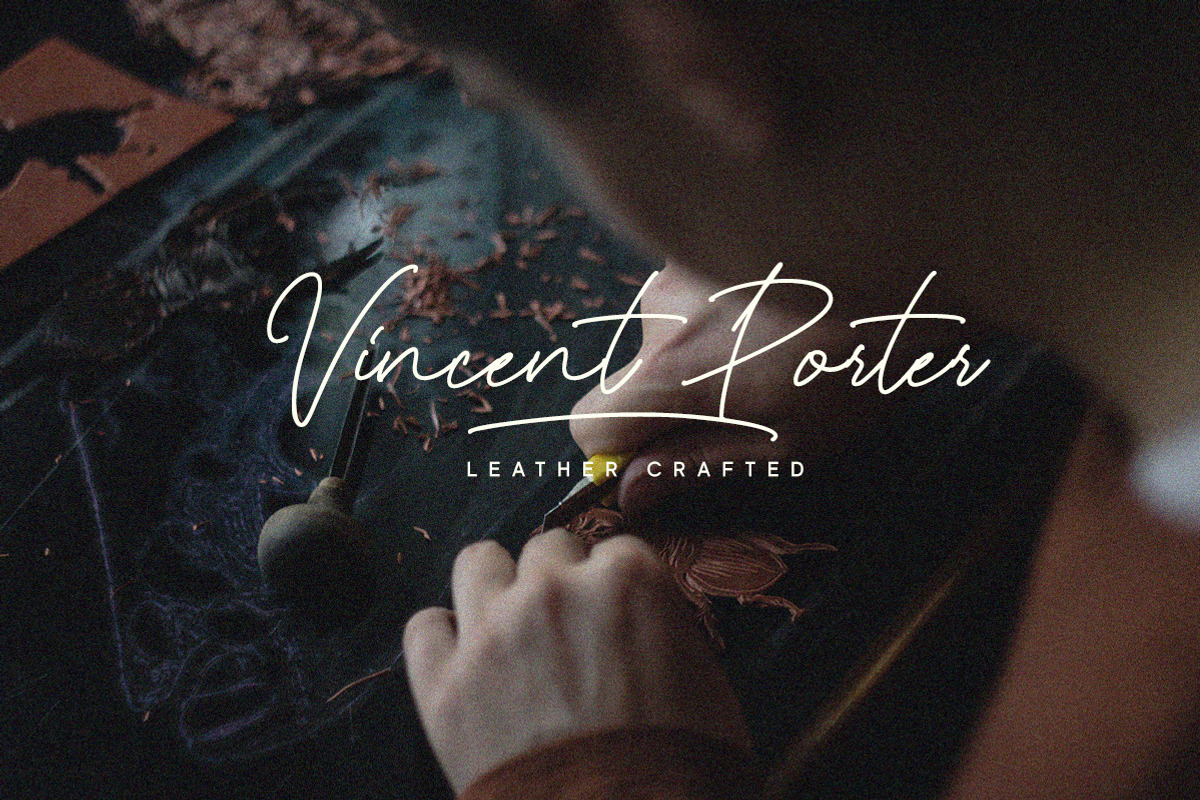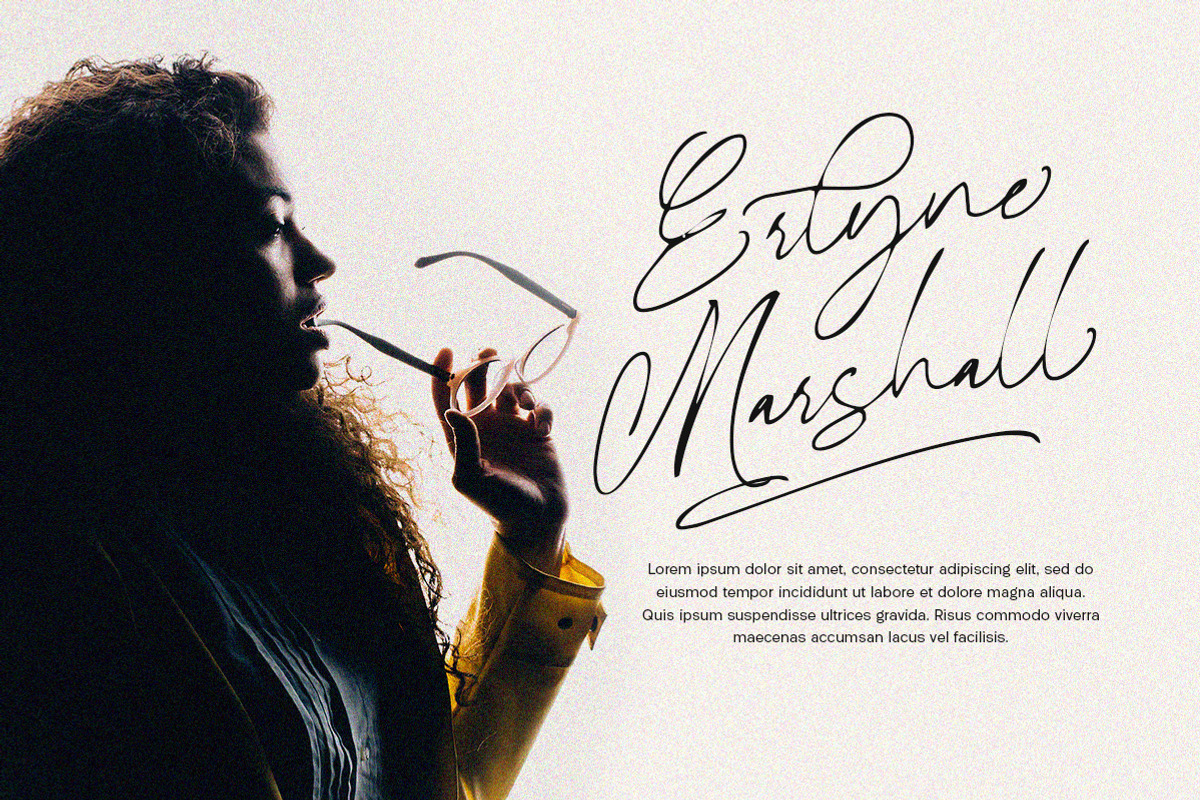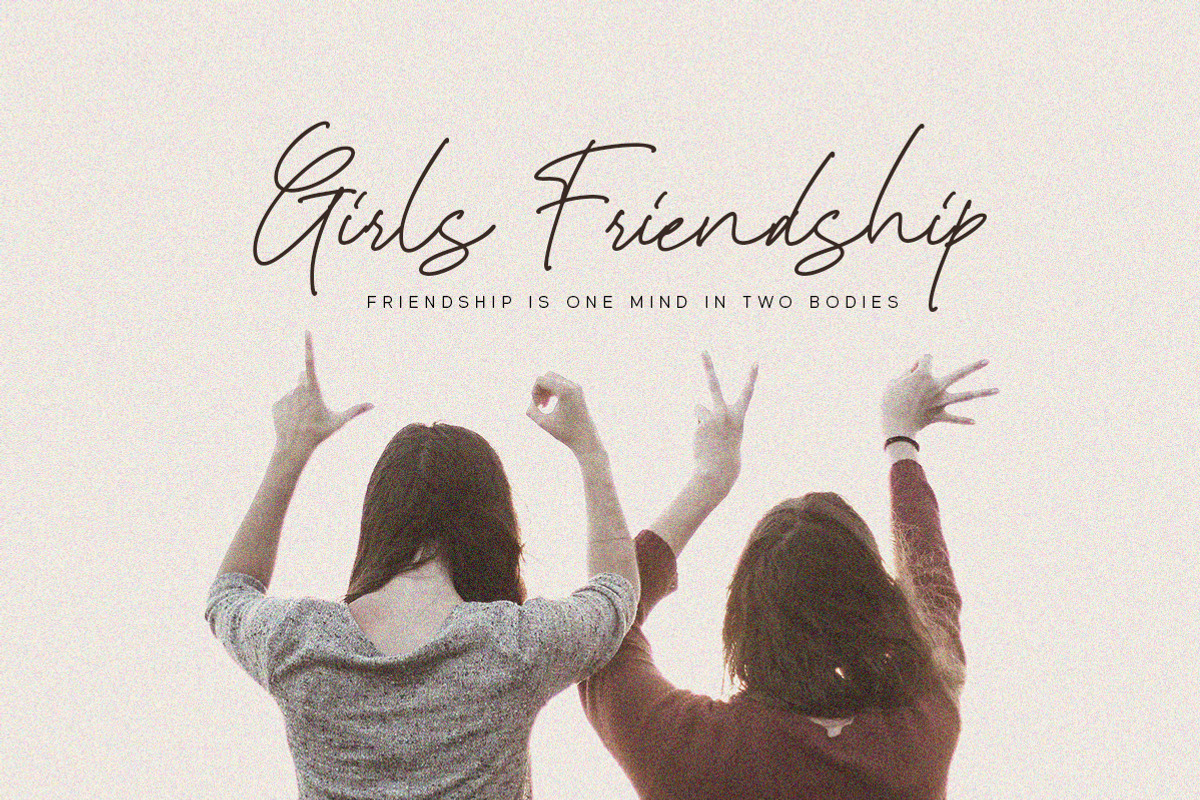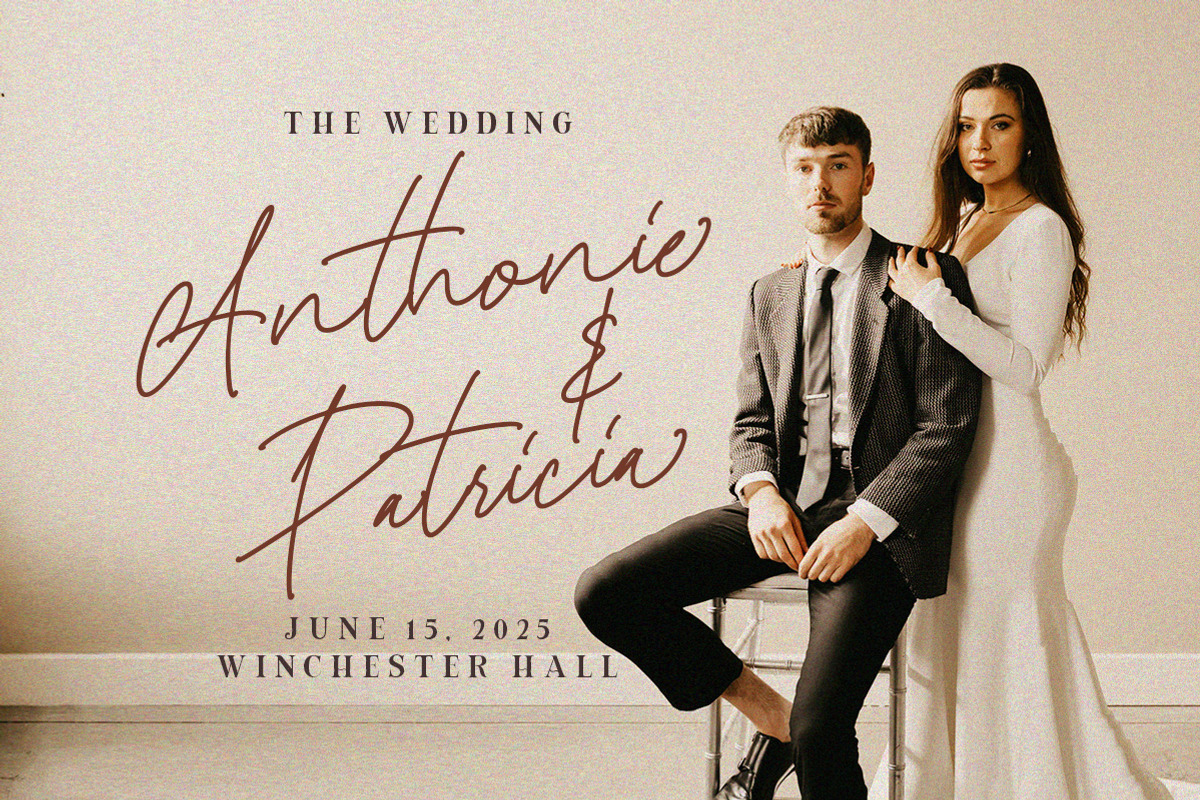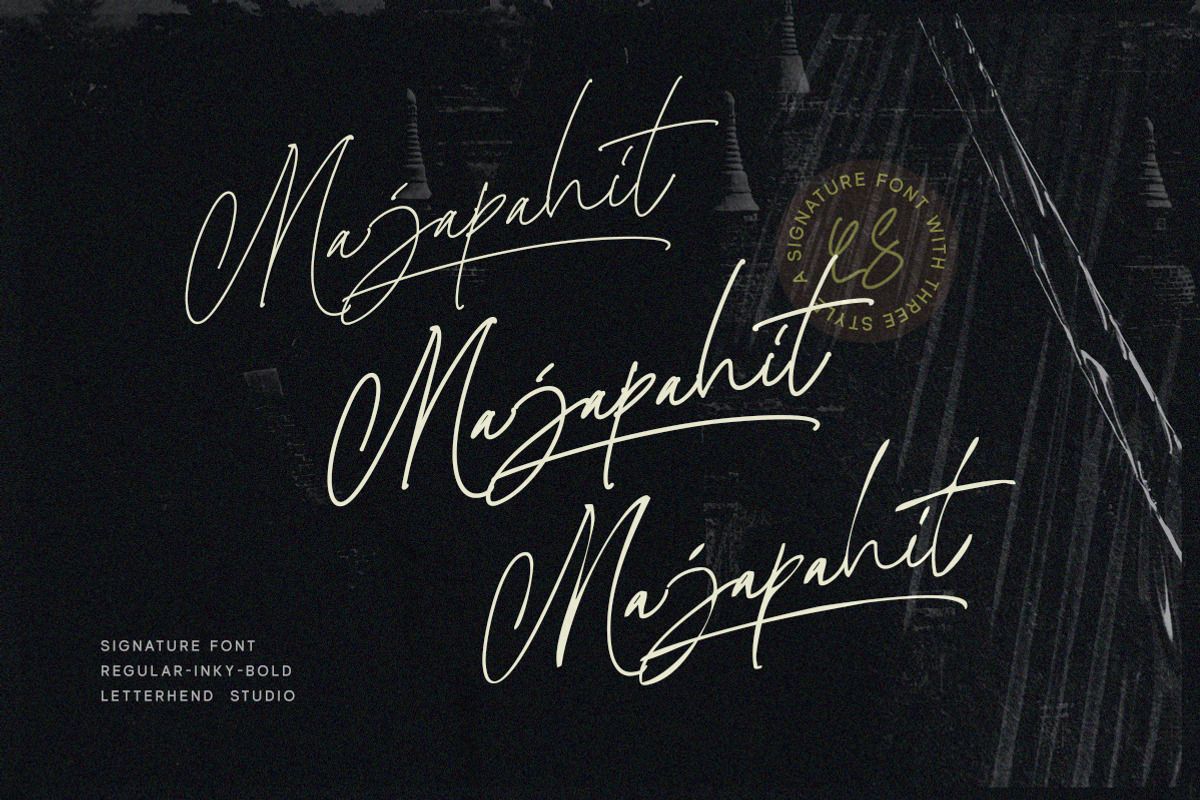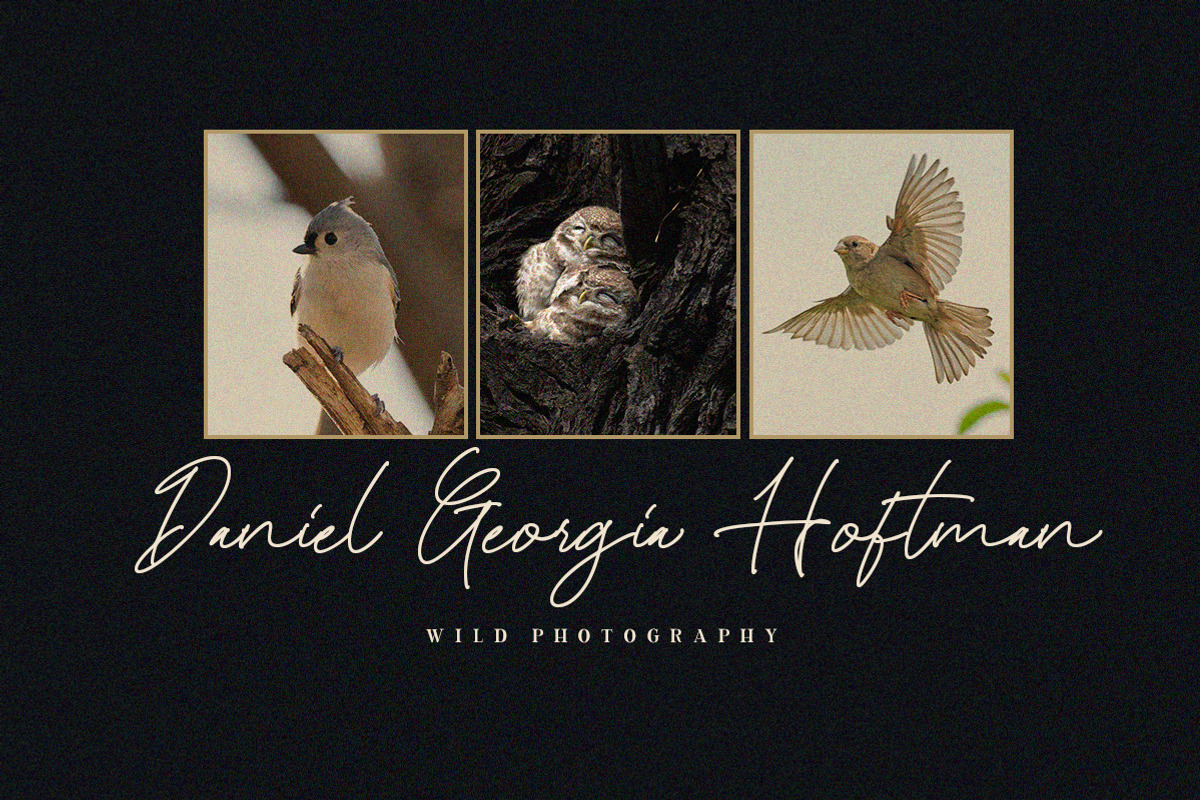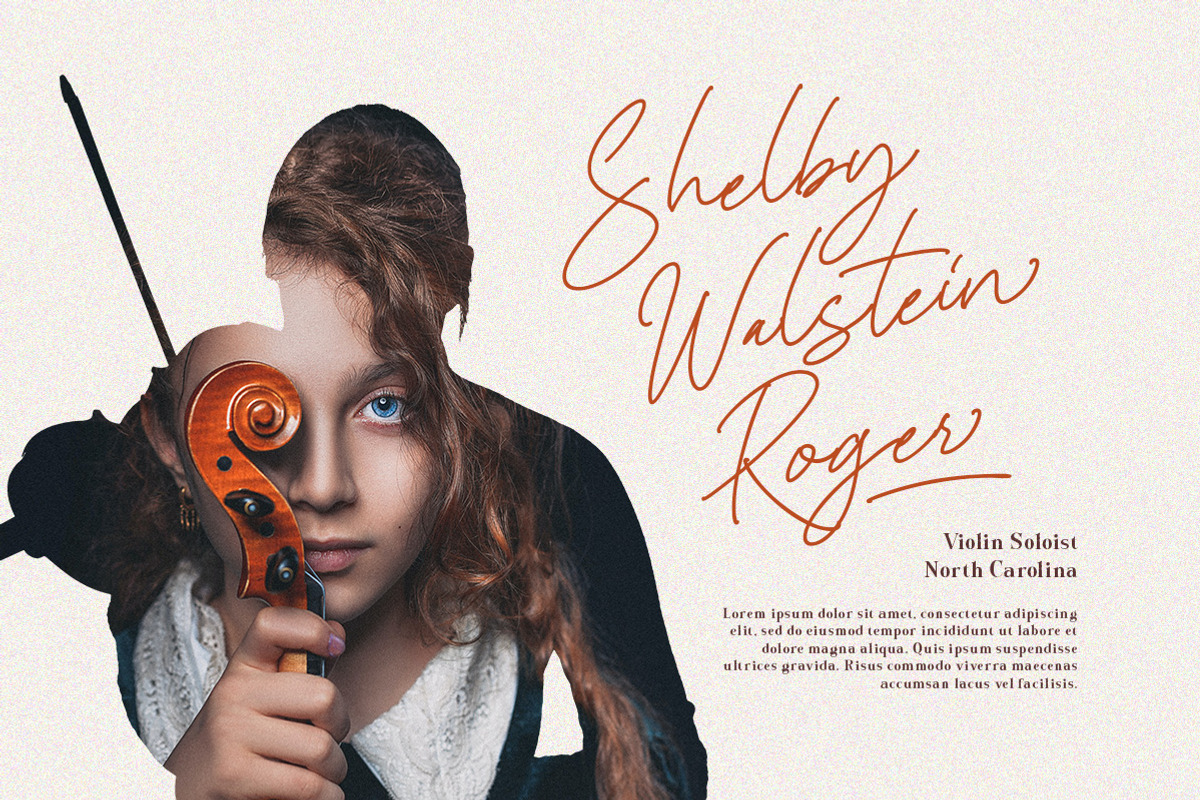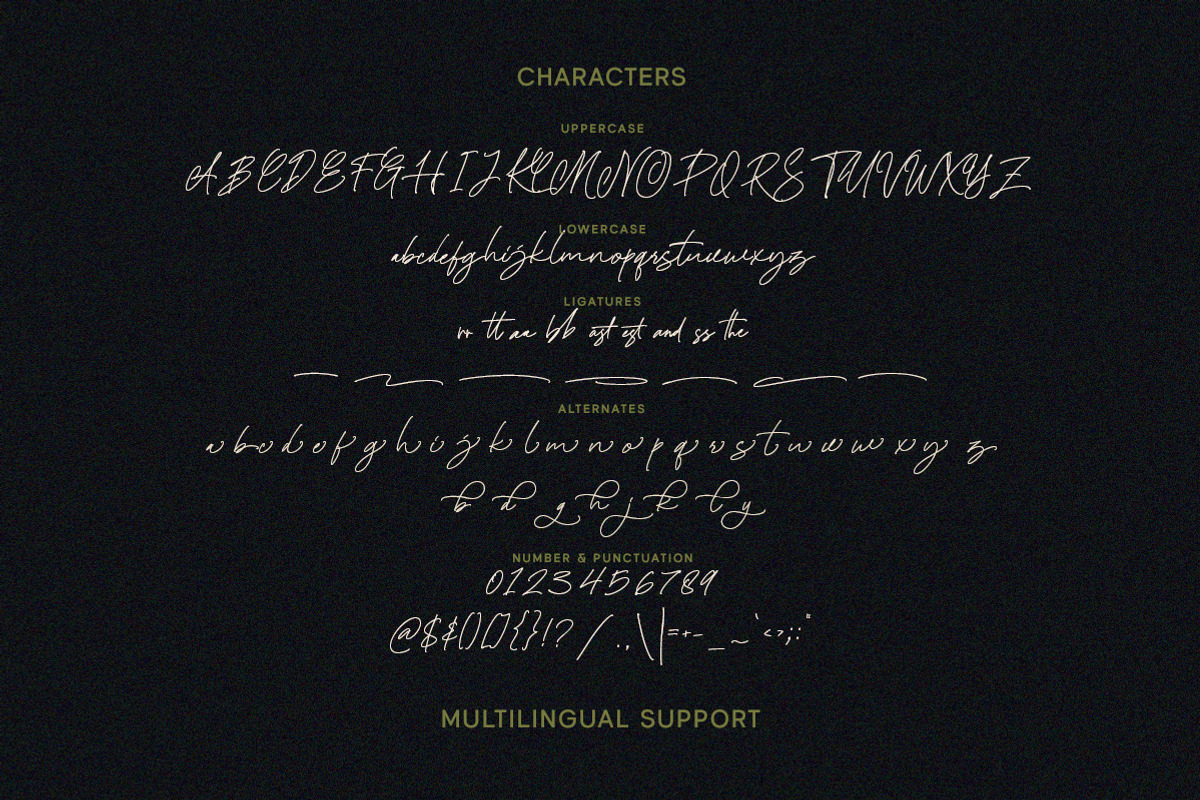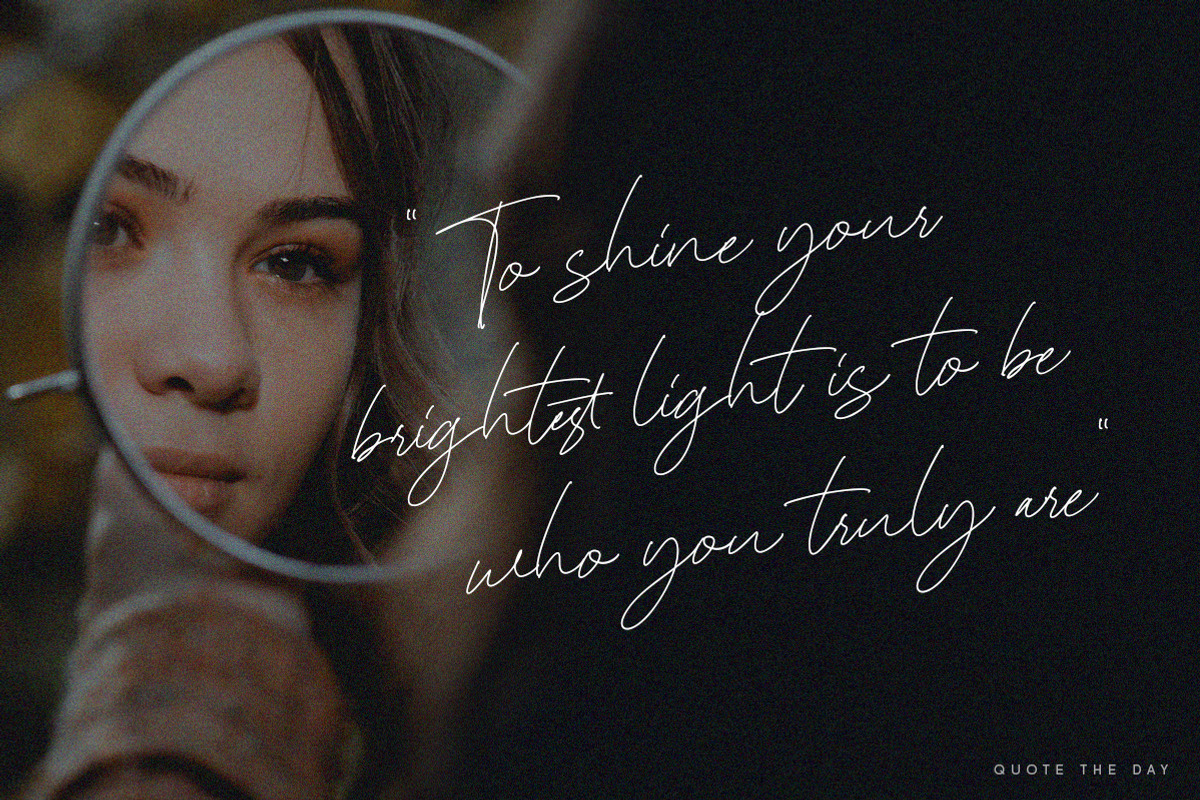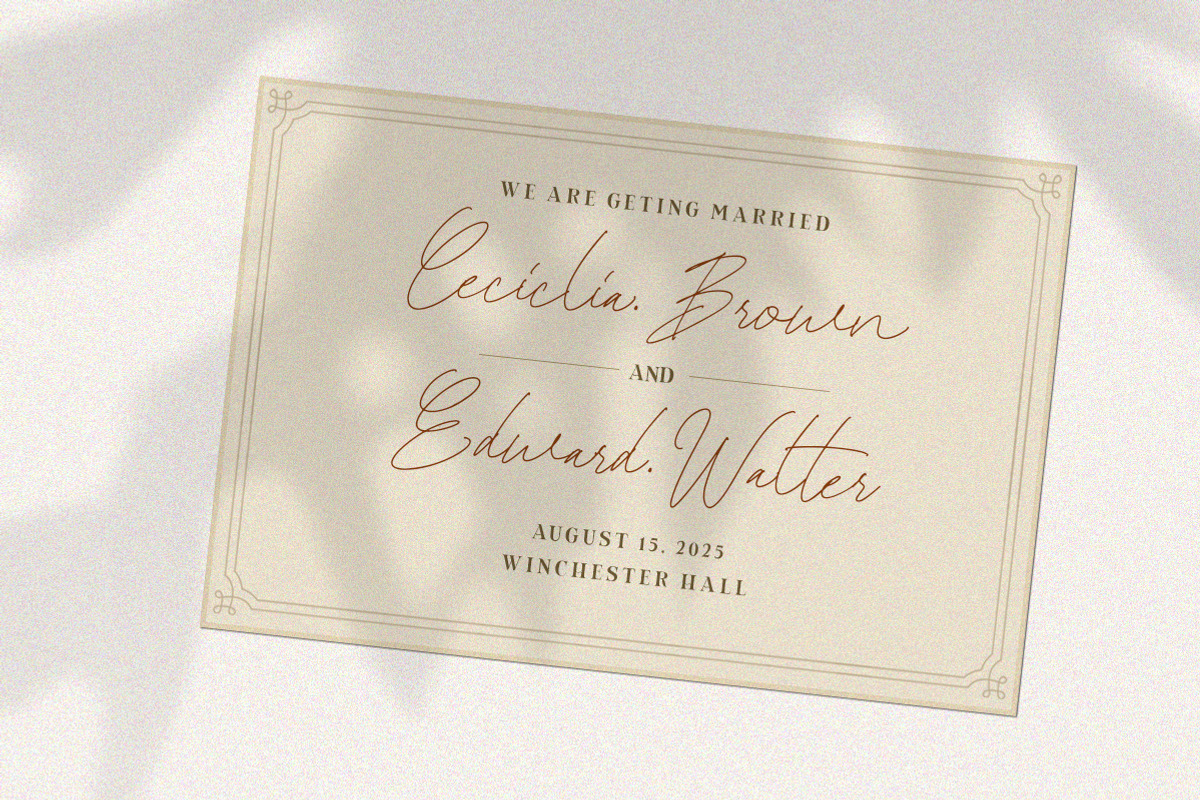
Majapahit- Signature Font
Majapahit is a signature script based on manual hand writing. This typeface comes with 3 style fonts which you can choose from. This type of font perfectly made to be applied especially in logo, and the other various formal forms such as invitations, labels, logos, magazines, books, greeting / wedding cards, packaging, fashion, make up, stationery, novels, labels or any type of advertising purpose.
- 3 style fonts : regular, inky, & bold
- alternates and ligatures